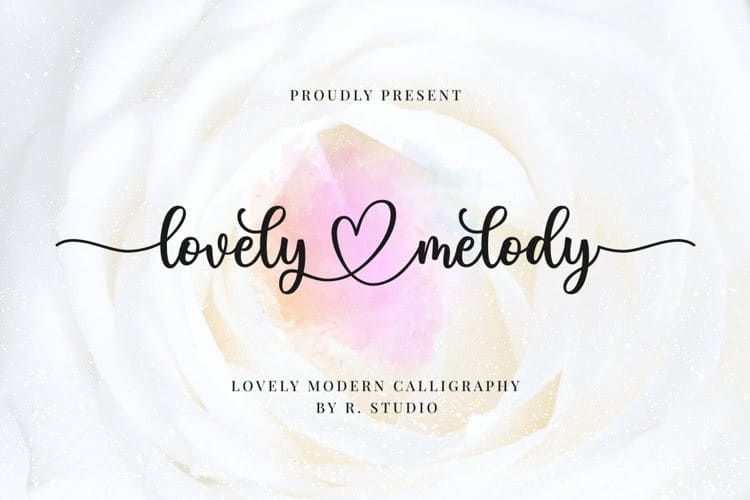
Lovely Melody Calligraphy Font
Lovely Melody Calligraphy Font is a beautiful and modern handwritten script font. It features gorgeous swashes and ligatures that make this script incredibly versatile. Made from font designer named RStudio. This typeface is a lovely modern calligraphy font with special heart characters. It will add a romantic touch to any crafting project!
Fall in love with it’s authentic feel and use it to create gorgeous wedding invitations, beautiful stationary art, eye-catching social media posts, and cute greeting cards.